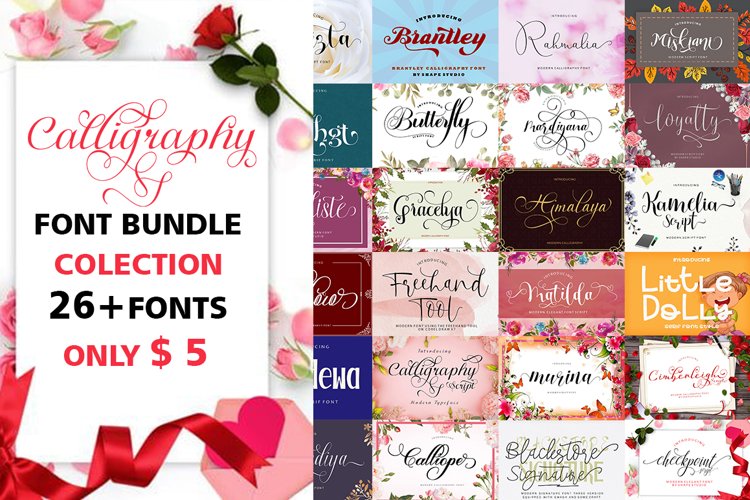
This is your chance to get all of my fonts at a super cheap price of $ 10! Including 26 Fonts in 20 typography. This bundle includes various font styles such as, calligraphy, signatures, brushes, hand letters and much more. with hundreds of flying machines, including alternative, ligature, swash, and international language support.
This package is perfect for greeting cards, branding, business cards, quotes, posters, stickers, blogs, logos, weddings, signage, packaging, birth announcements, photo overlays, wall art, quotes, printed matter, bags, t-shirts and many again!